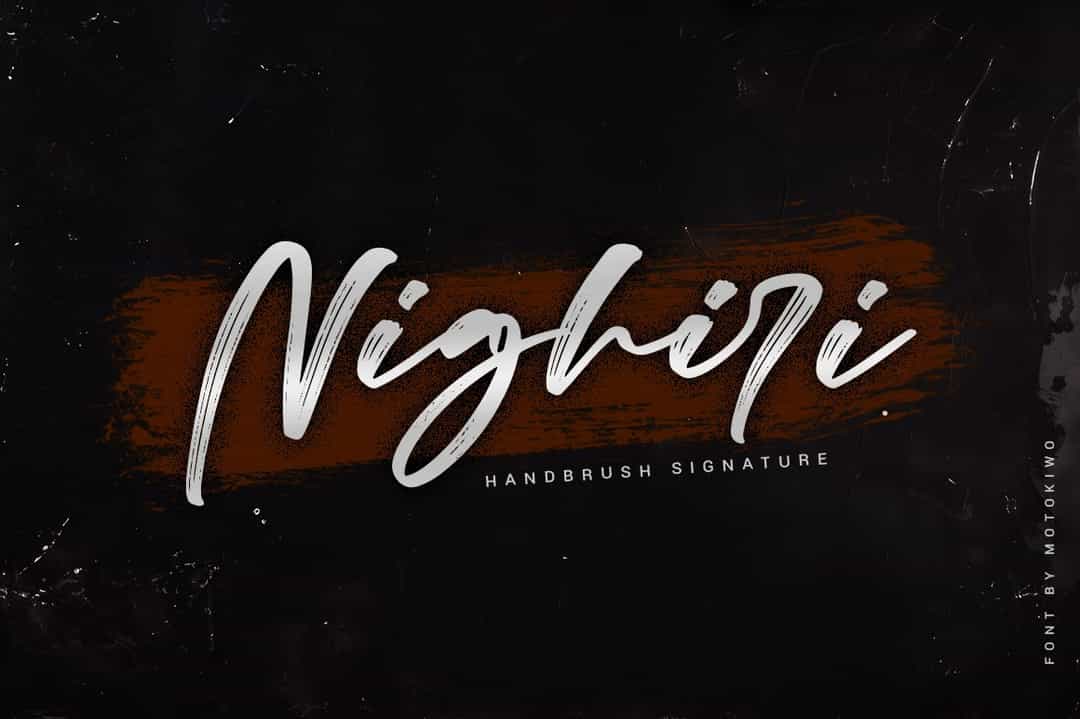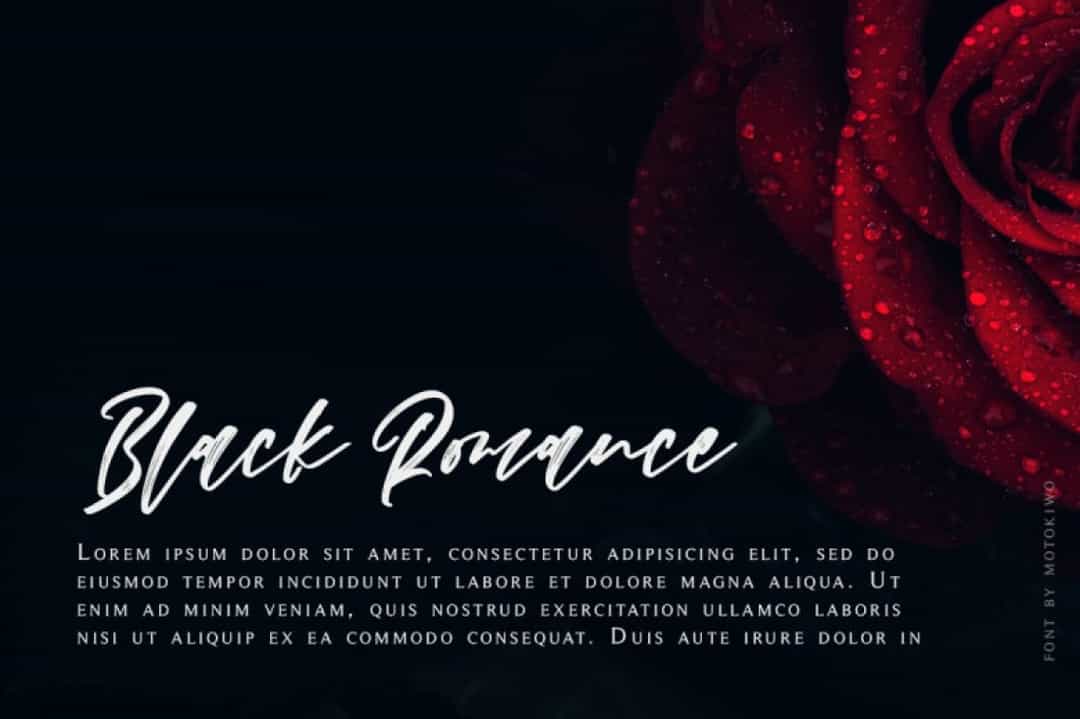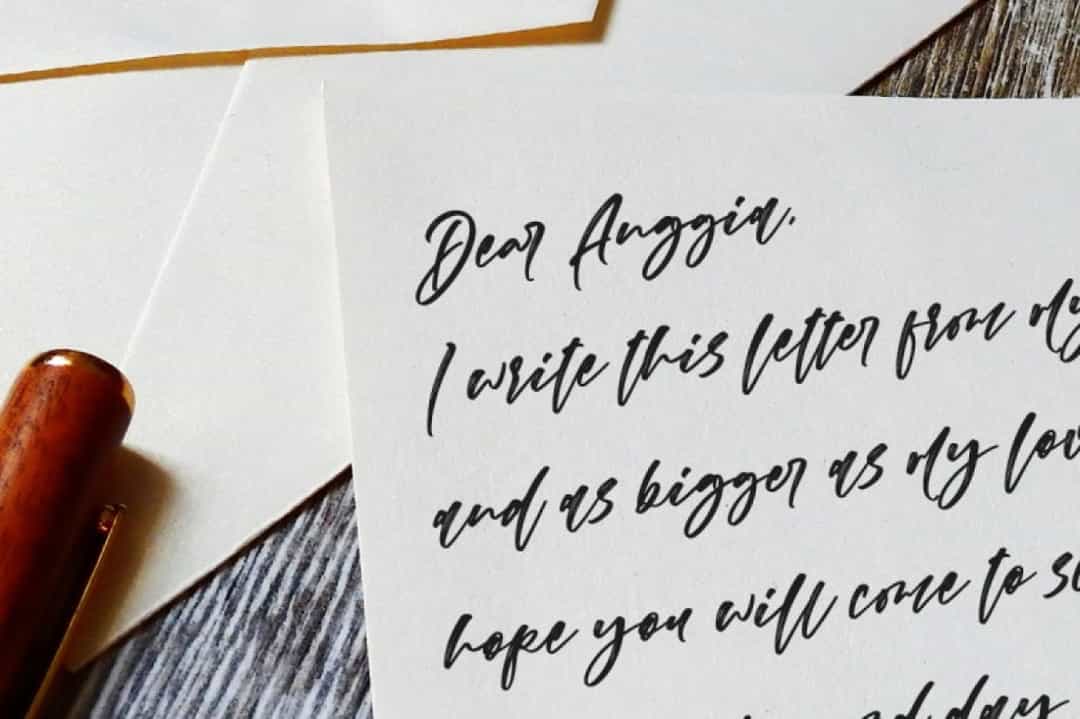
Nighiri is a new brush font and has beautiful characters that are ideal for striking designs. Handwritten font, with the characteristic of the fast drying strokes, for a more natural look. It is ideal for logos, nametags, handwritten quotes, product packaging merchandise social media greeting cards.